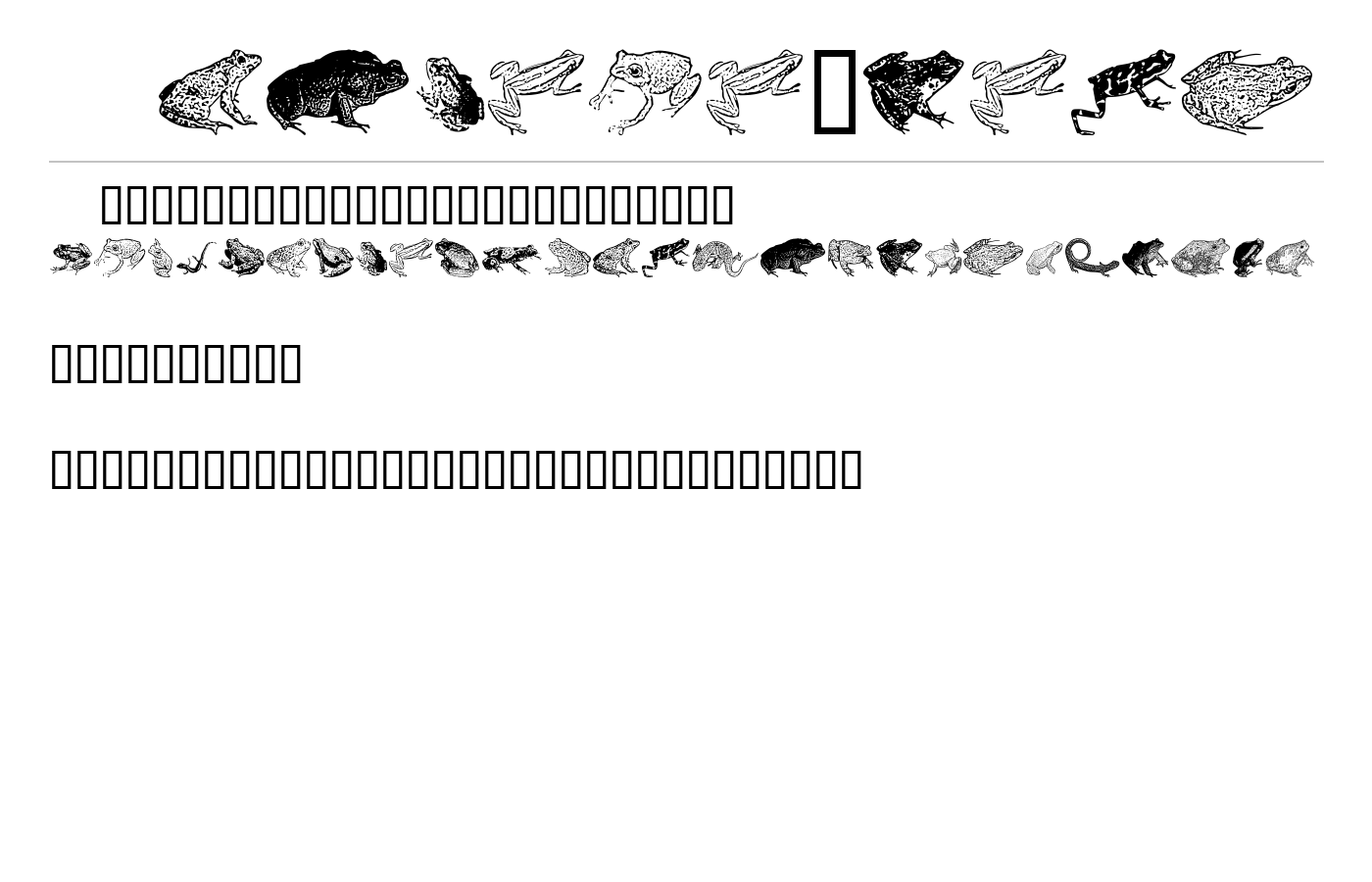
AmphibiPrint is a playful and unique decorative font that uses detailed amphibian and reptile illustrations as its characters, making it perfect for nature or wildlife-themed designs. This highly specialized font adds a fun and quirky touch to headlines, posters, and branding projects where a distinct and eye-catching style is desired. Its intricate imagery makes it best suited for display use rather than body text, giving a lively and creative vibe to any design.
AmphibiPrint Font
About AmphibiPrint Font